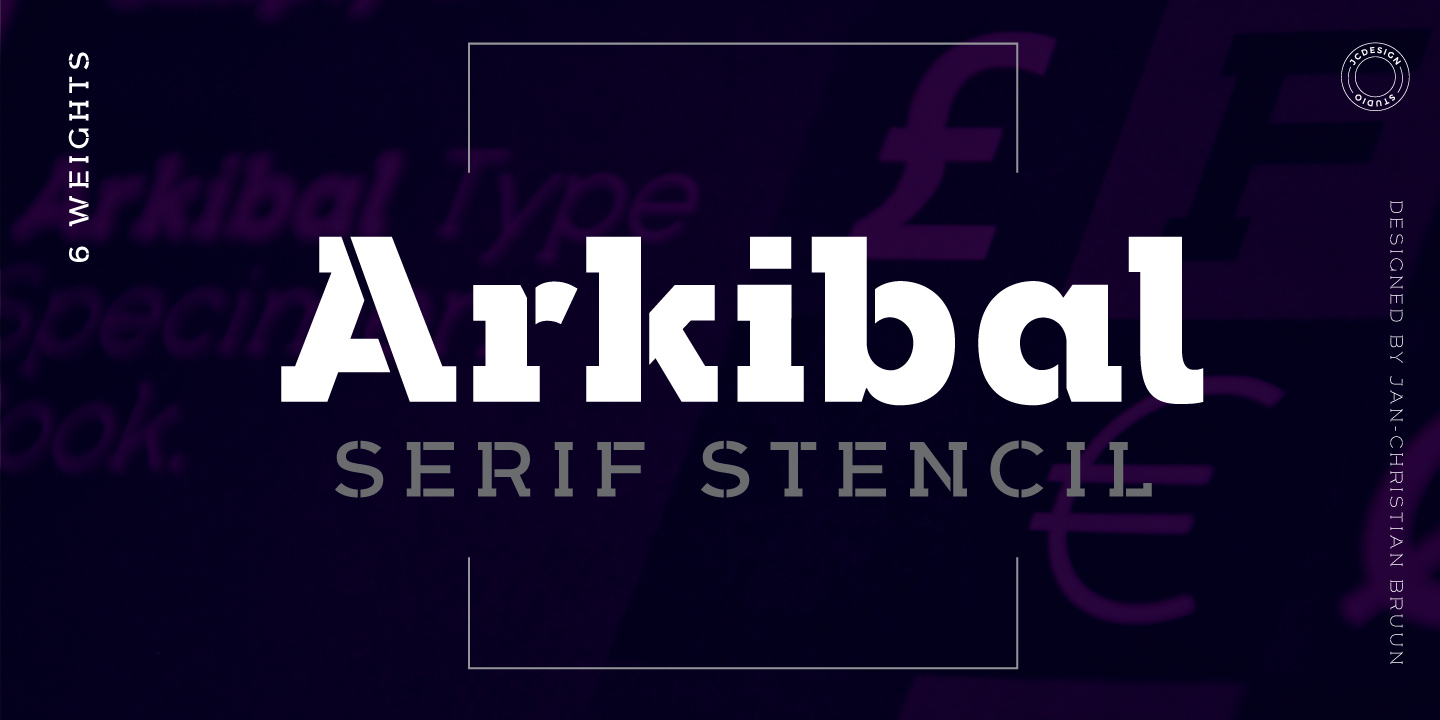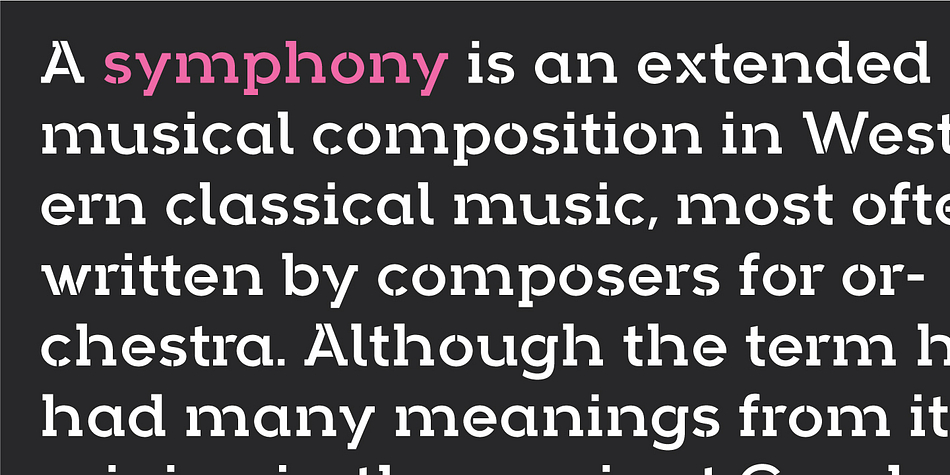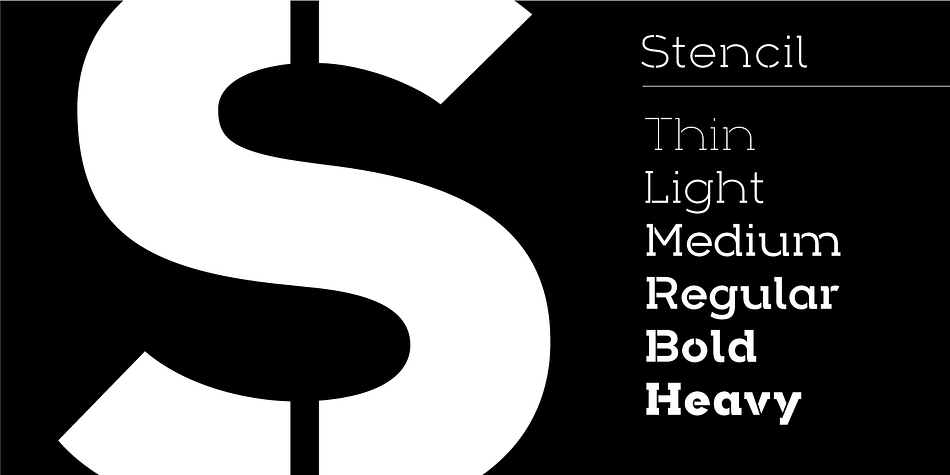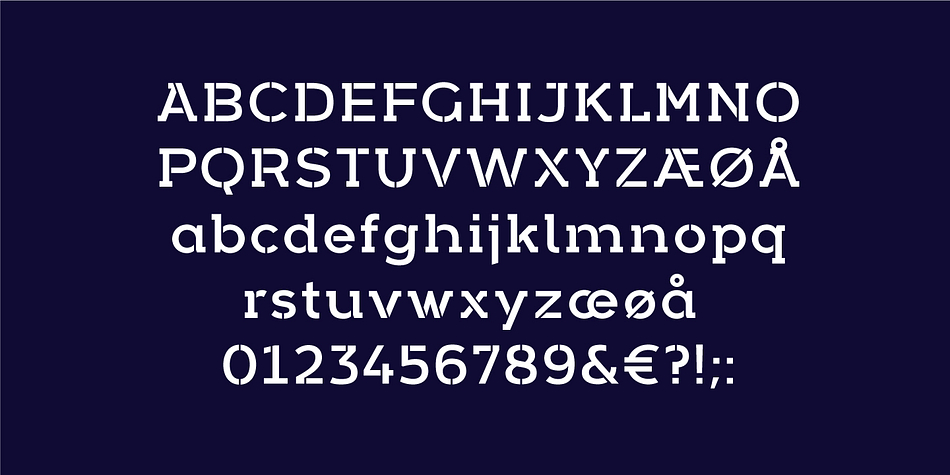
Arkibal Serif Stencil
Arkibal Serif Stencil is a stencil, slab serif and display serif font family. This typeface has six styles and was published by JC Design Studio.
The inspiration comes from some old documents and store signs from my great-grandfather’s old gold list factory from 1838. He delivered hits for many artists of that time, and various museums in Copenhagen. I focused on creating a mixture of the classic letter with a modern lift.
Seems it was interesting to try to reproduce some of the old characters and make a new font. Uppercase “G” was the first letter of the starting point. G in danish stands for “Guldramme”, which means “Goldframe”. Arkibal is coming from an almost old danish tradional name “Arkibald”, only without “d”.